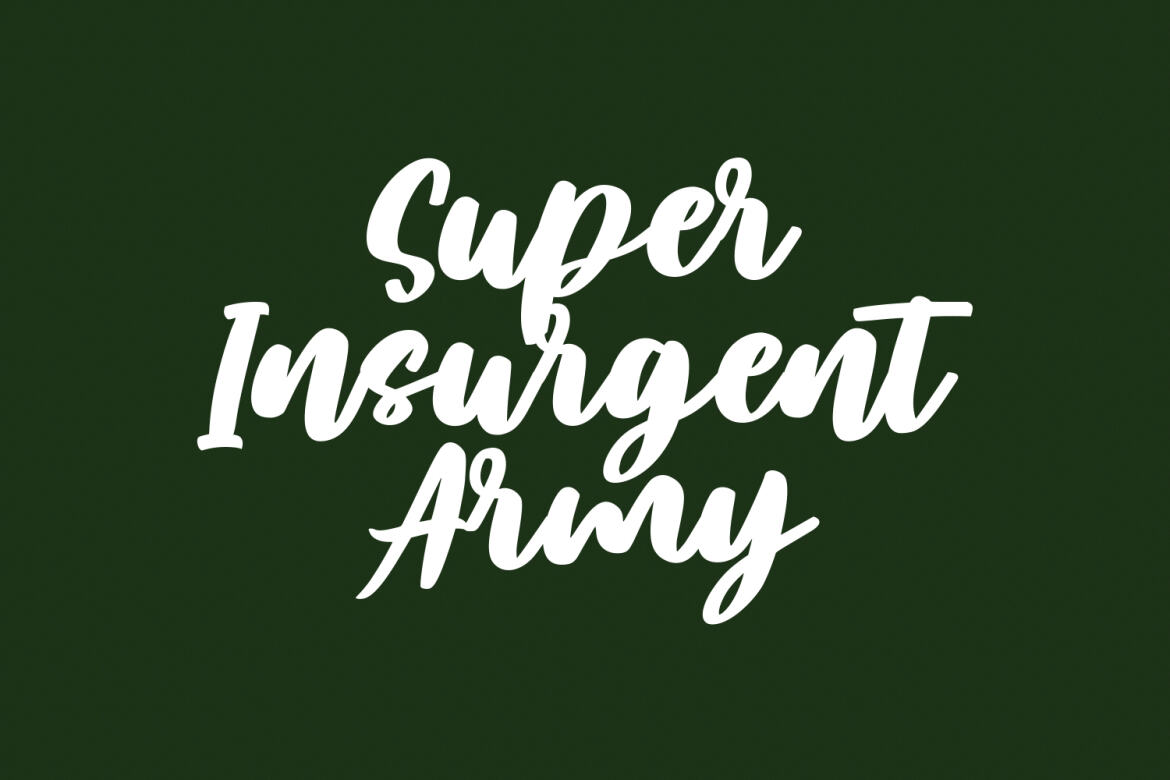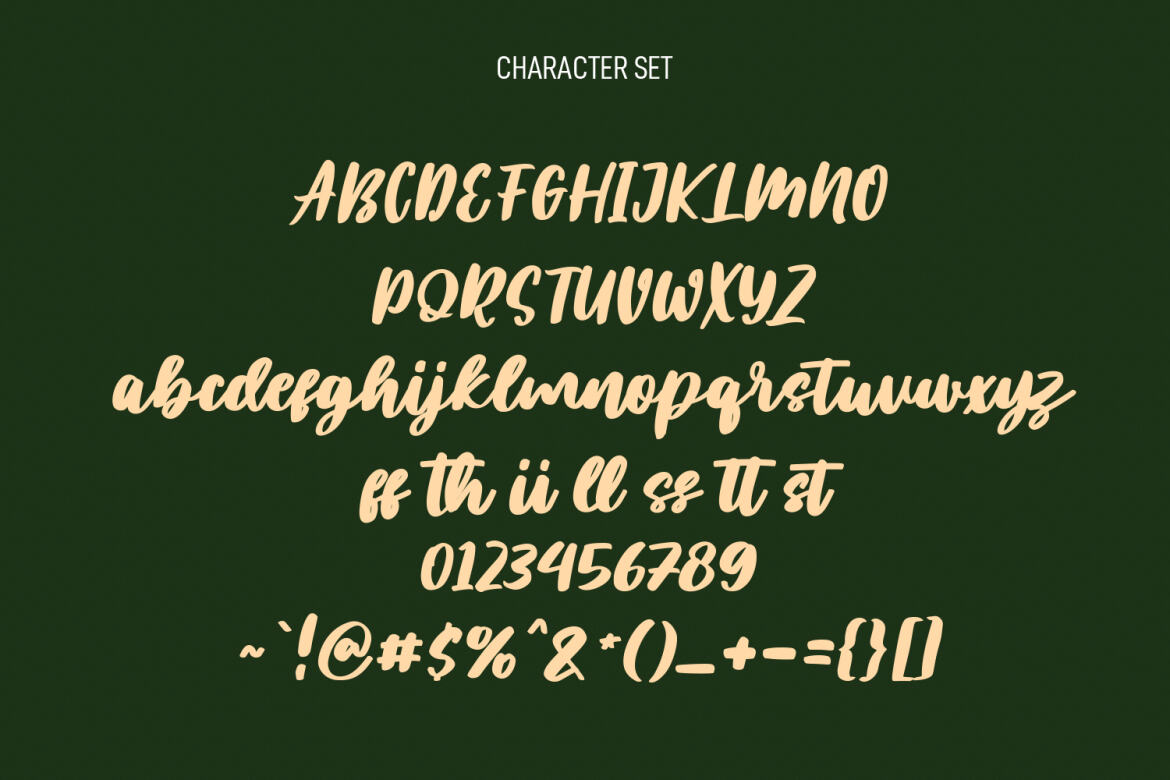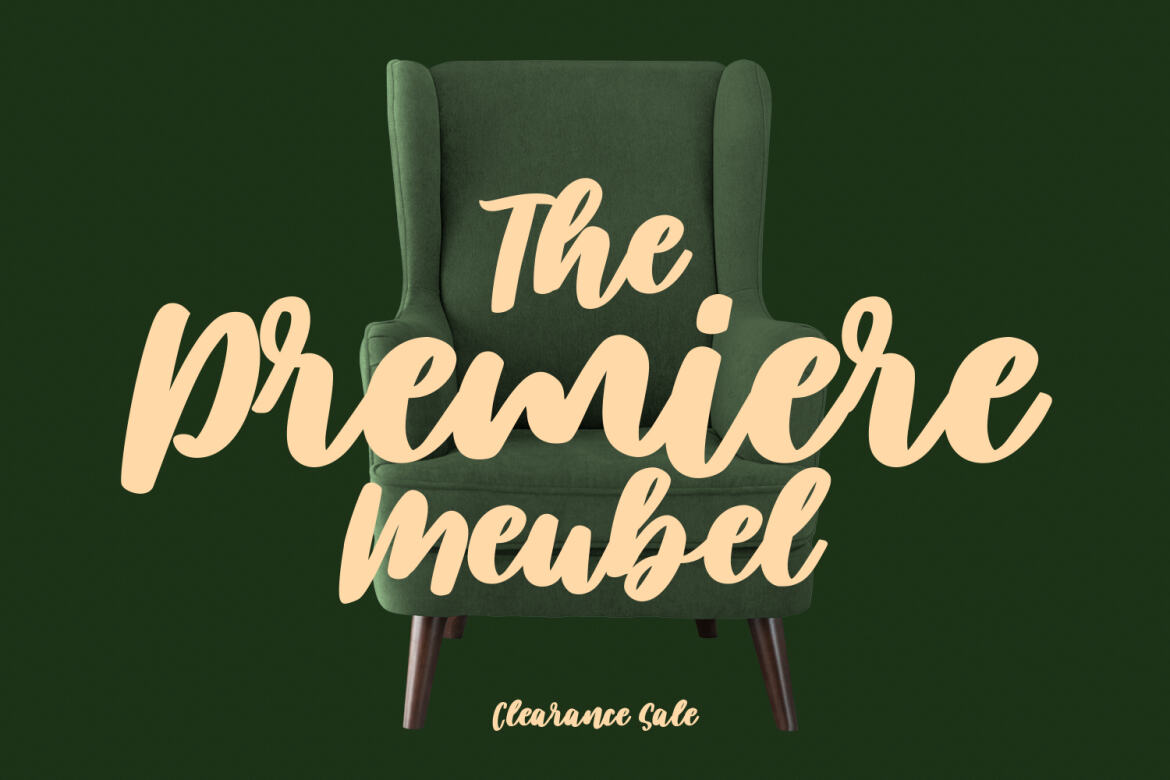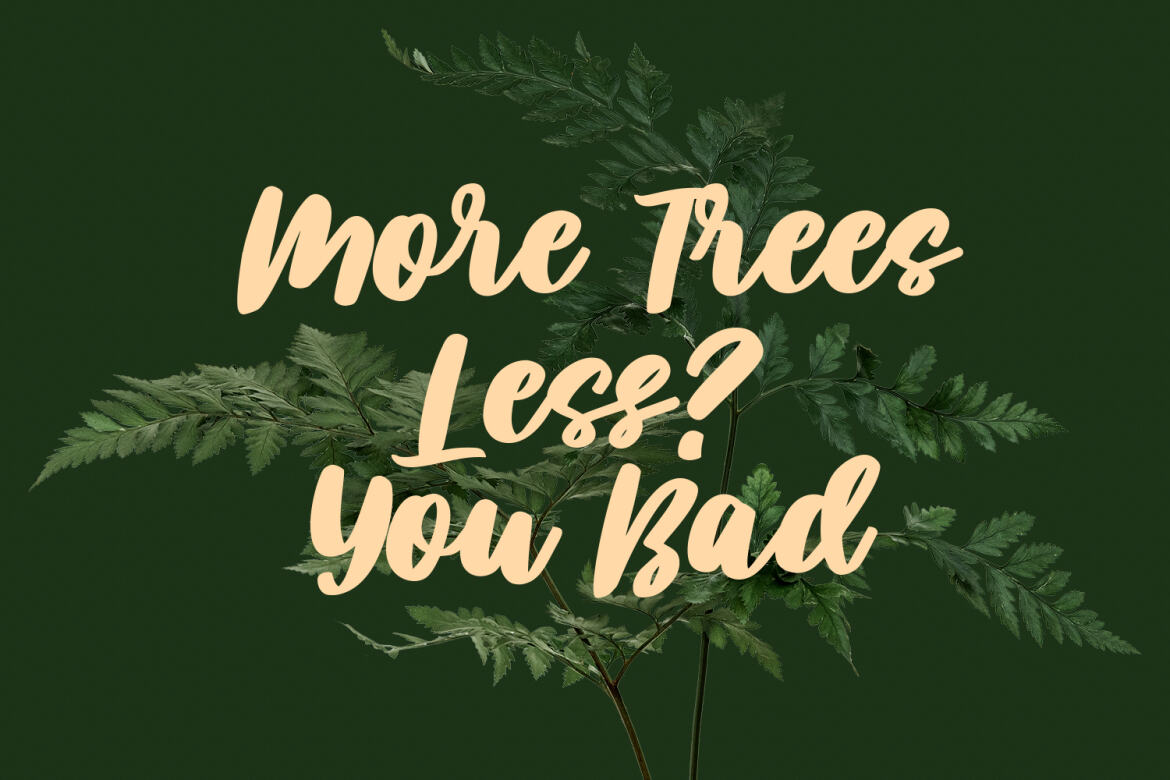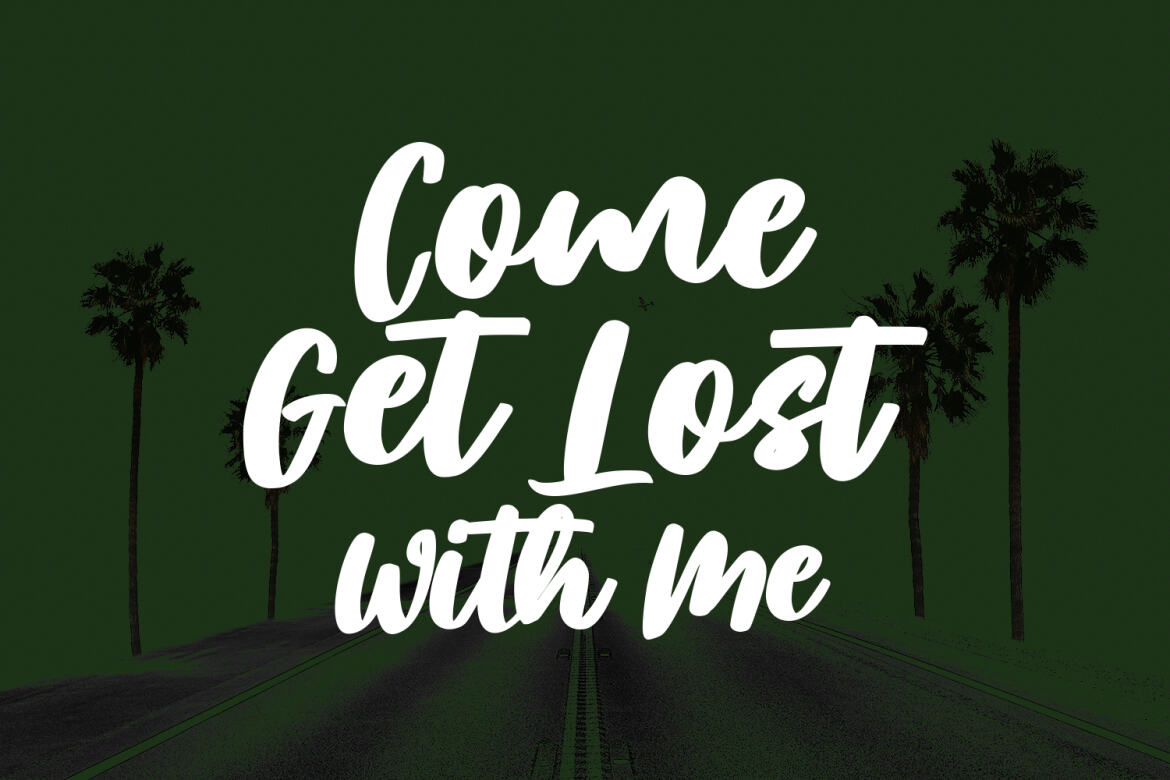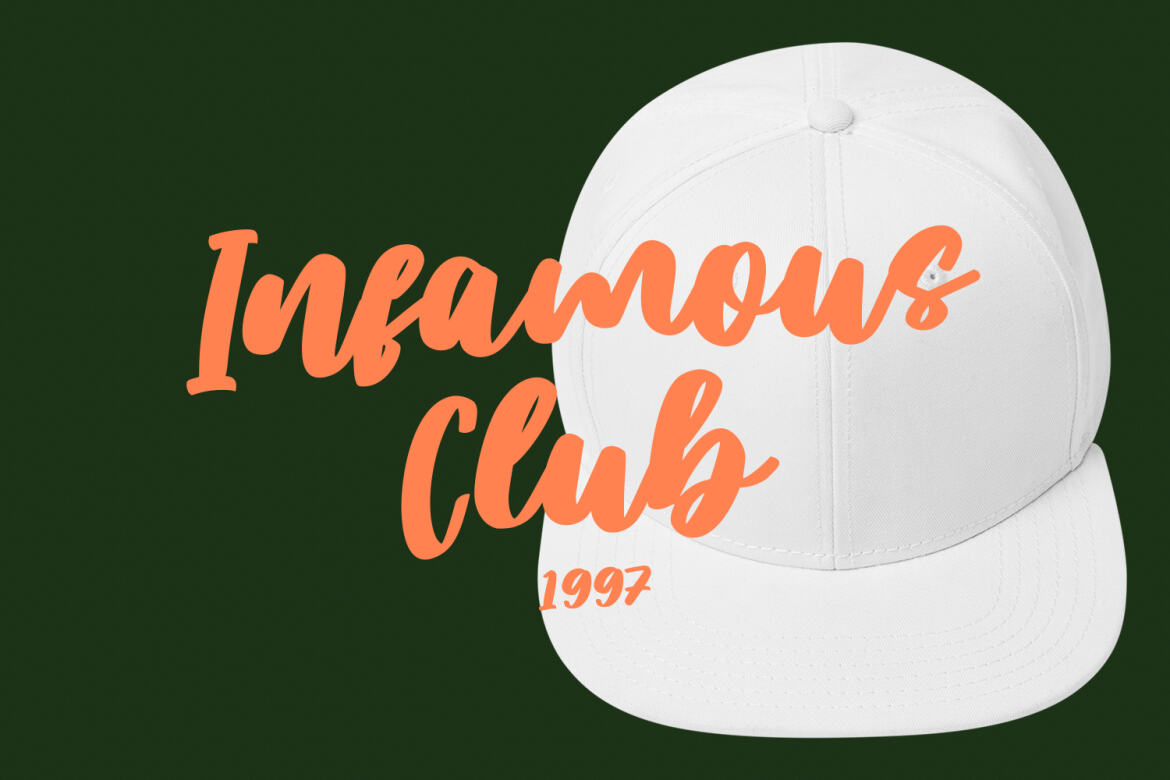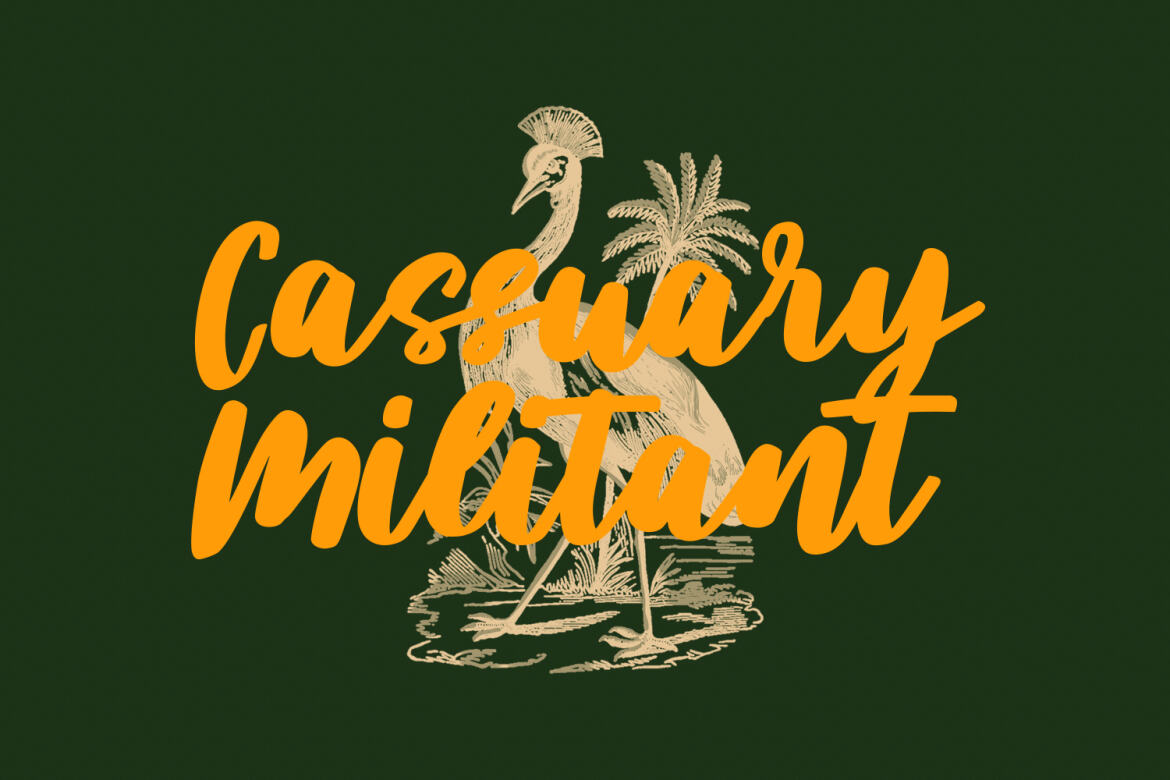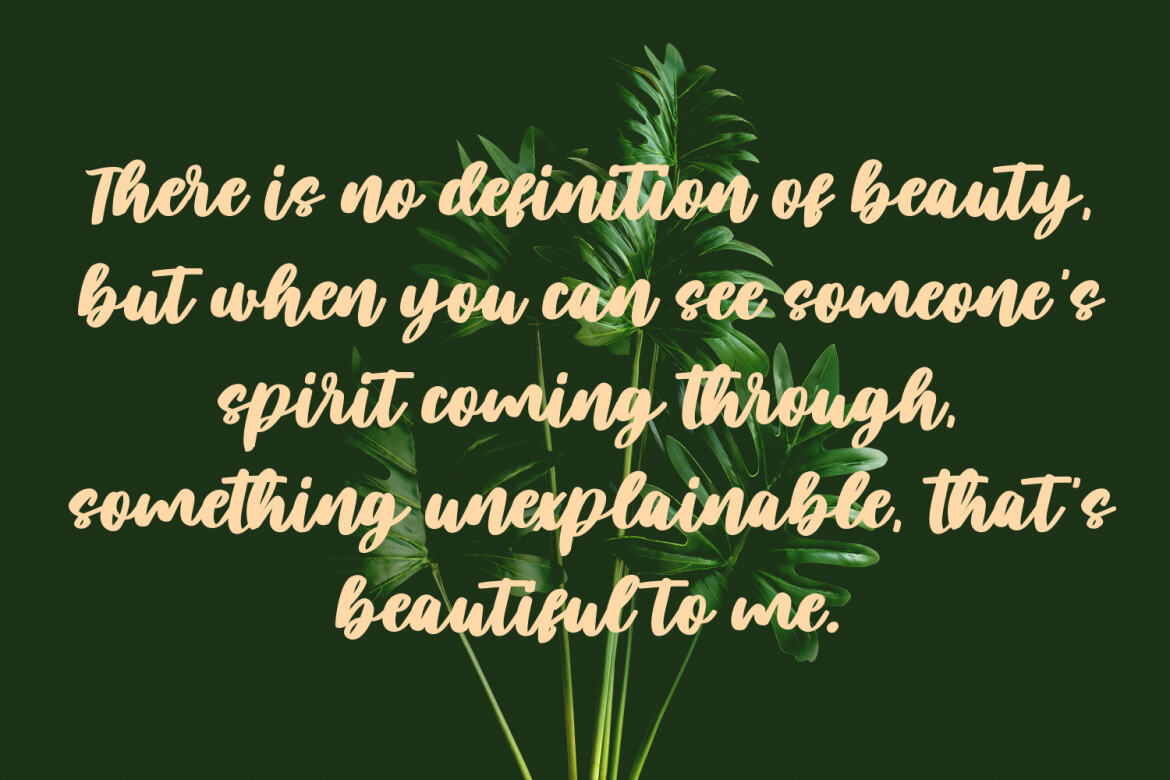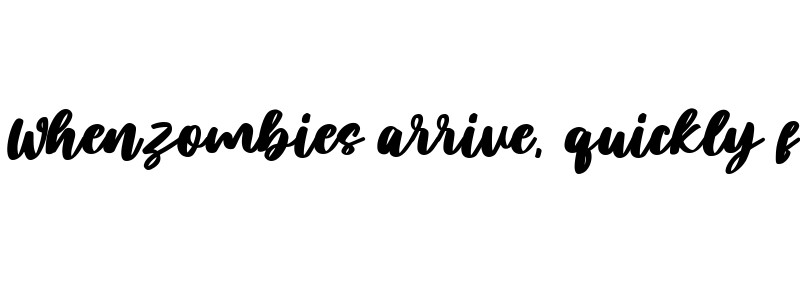
Plotwist
Plotwist is a casual handwritten script font. With bold stroke, slanted and fun character with a bit of ligatures. To give you an extra creative work. Plotwist font support multilingual more than 100+ language. This font is good for logo design, Social media, Movie Titles, Books Titles, a short text even a long text letter and good for your secondary text font with sans or serif. Make a stunning work with Plotwist font.